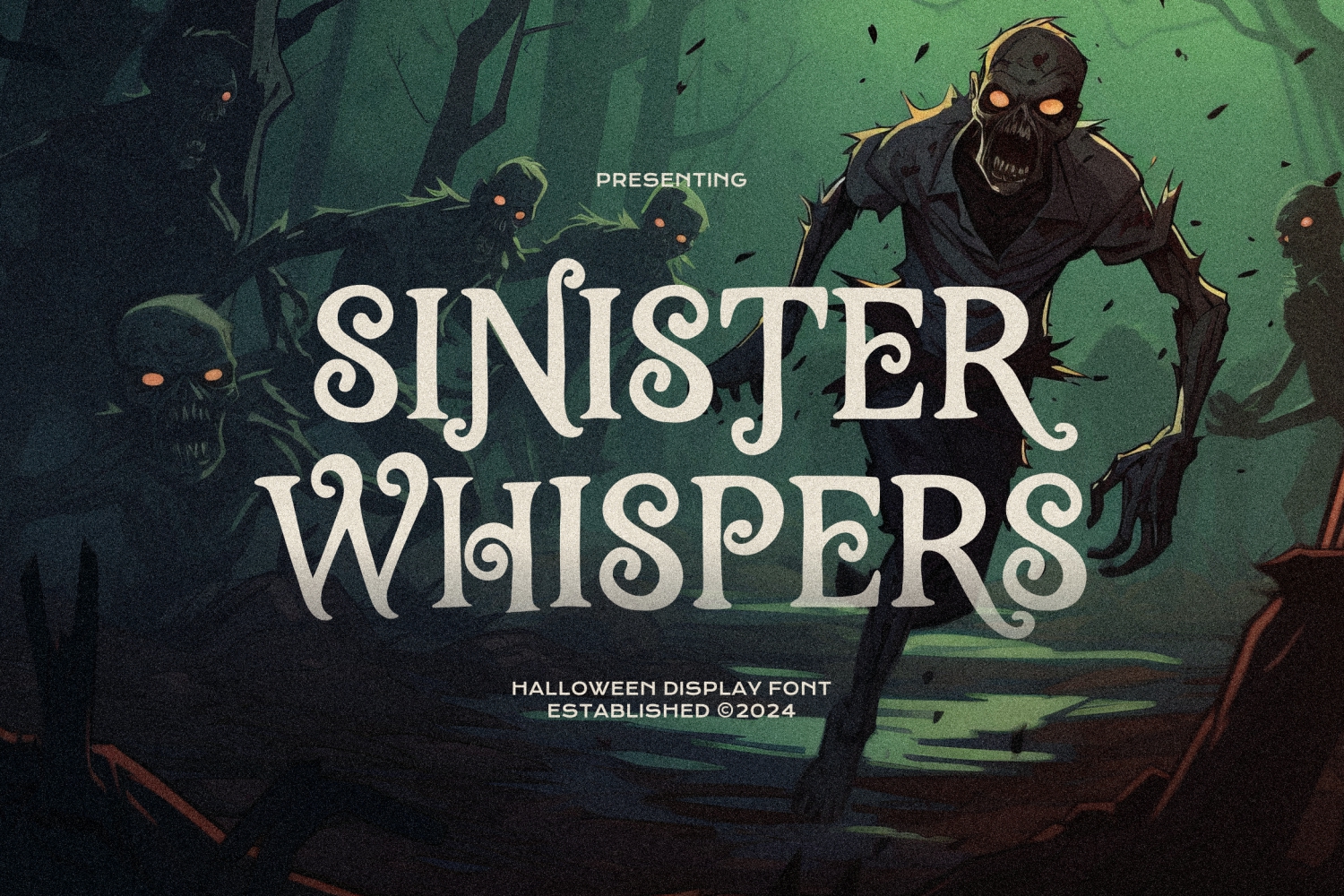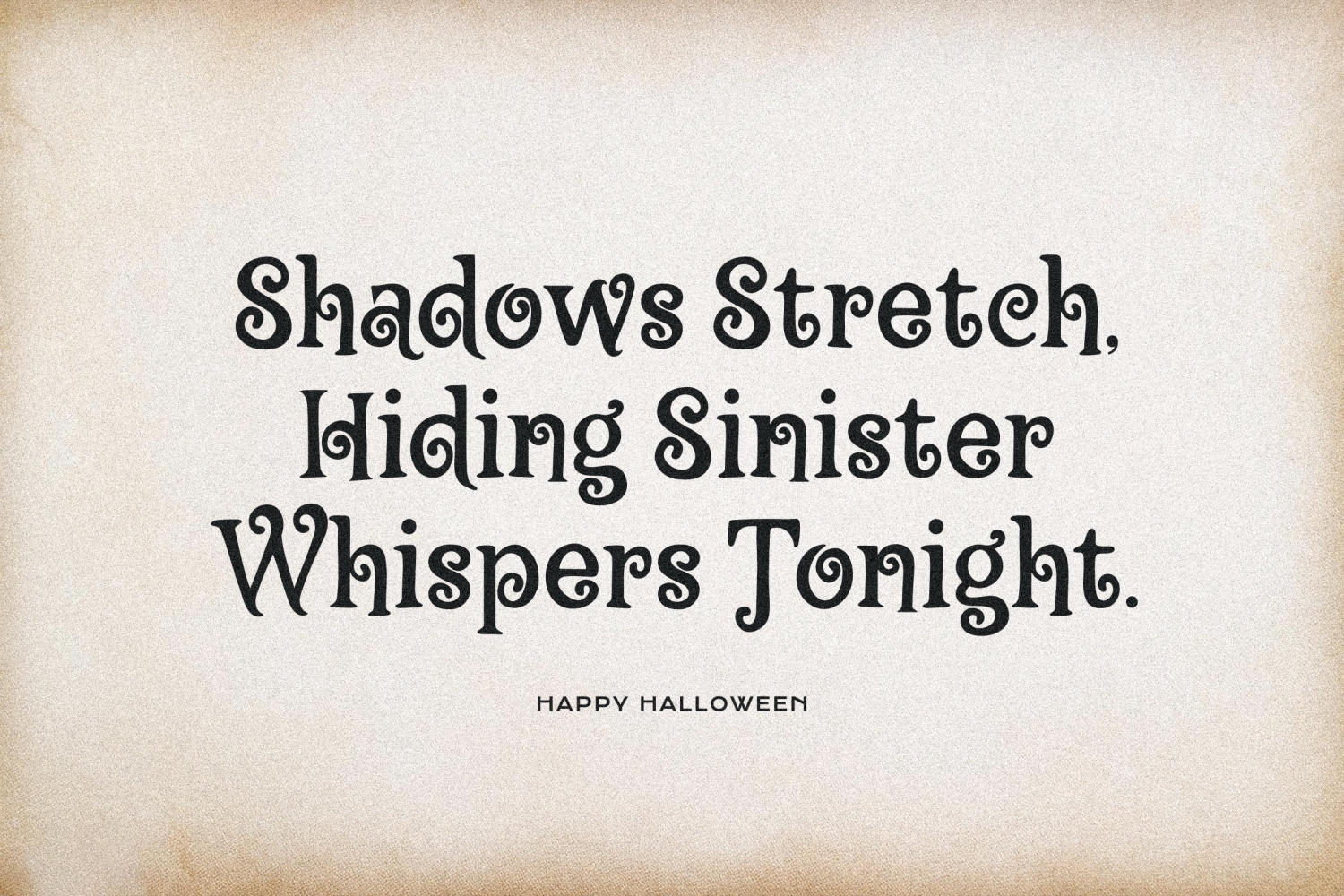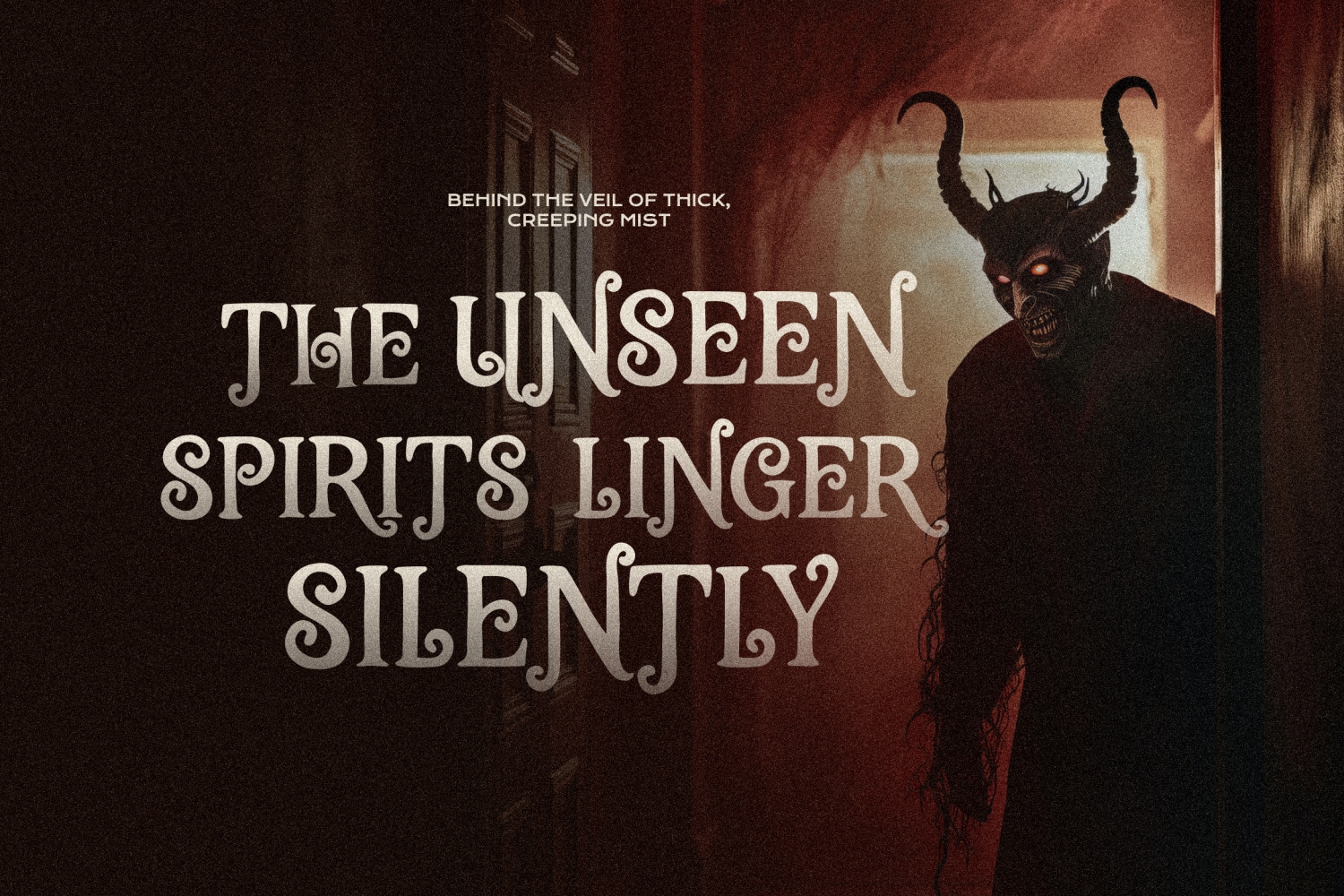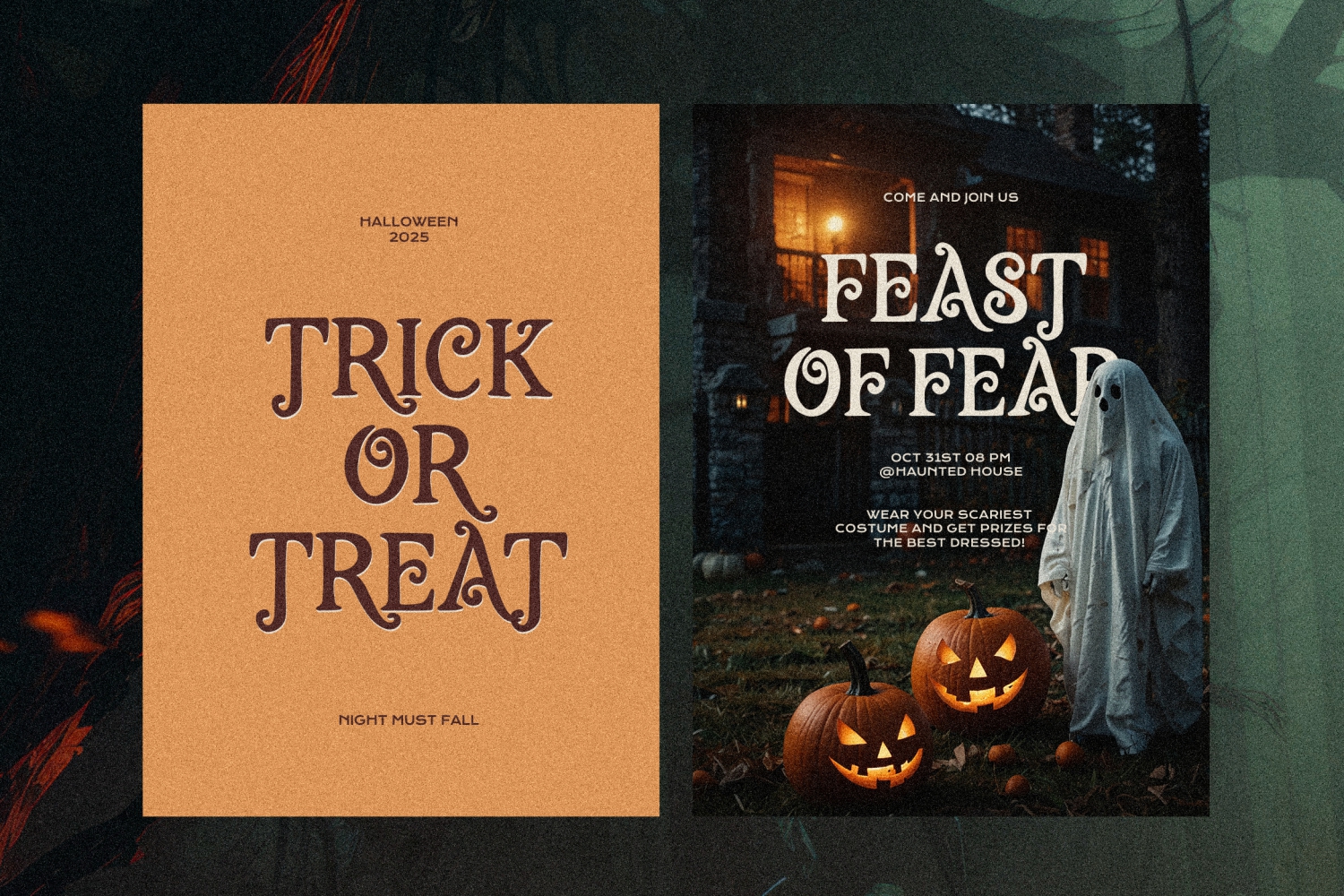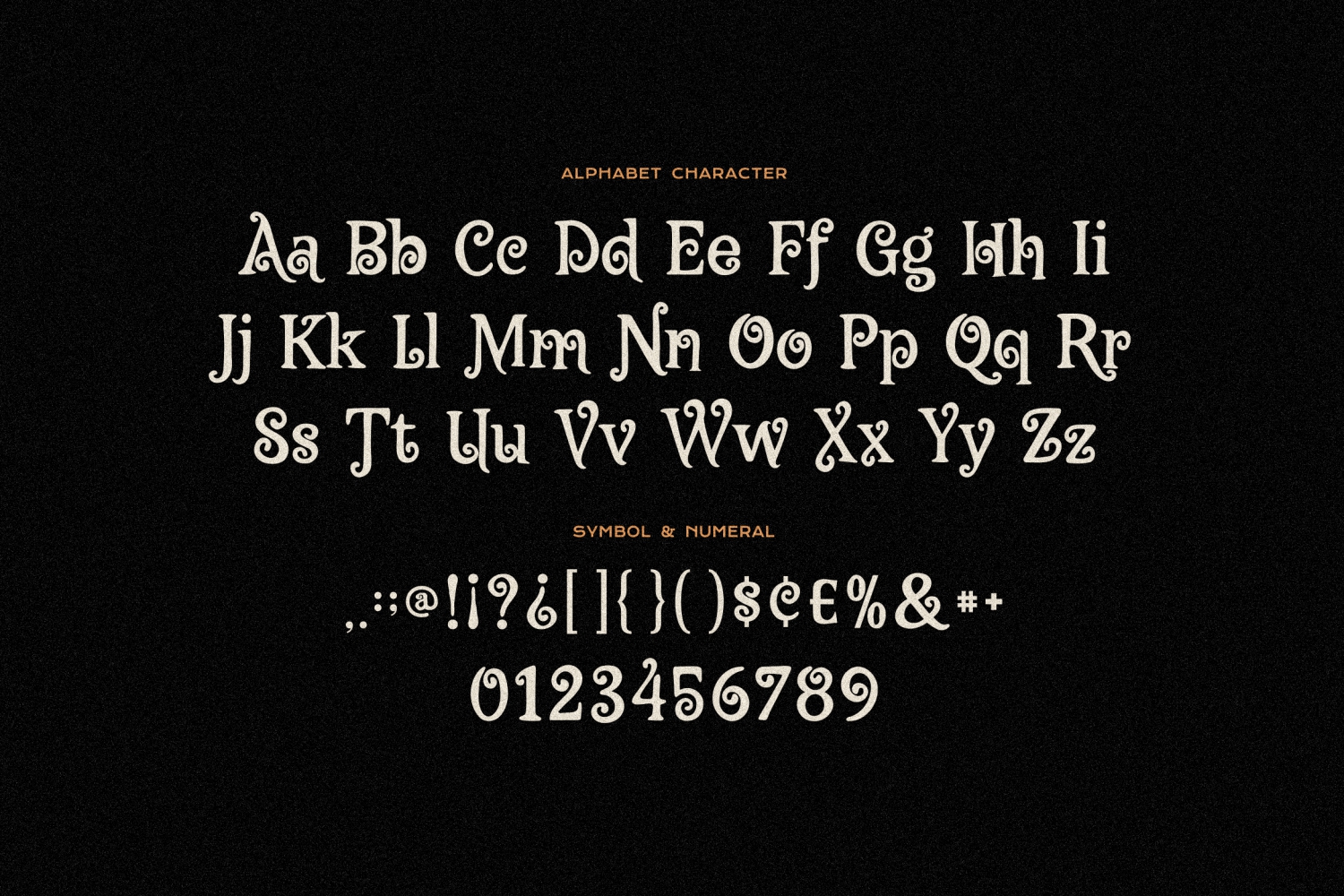
Sinister Whispers is a haunting Halloween display font that merges eerie elegance with vintage flair. Its sharp serifs and swirling terminals evoke a sense of gothic storytelling, perfect for evoking chills and mystery in every letterform. Ideal for horror posters, eerie invites, or spooky branding, this font carries the soul of classic horror with a modern twist.
Designed to captivate and unsettle, Sinister Whispers comes alive in haunted house flyers, creepy Halloween party promos, and unsettling quotes. Its carefully crafted uppercase and lowercase set, along with spooky punctuation and numerals, makes it a go-to typeface for any designer seeking a bone-chilling aesthetic.